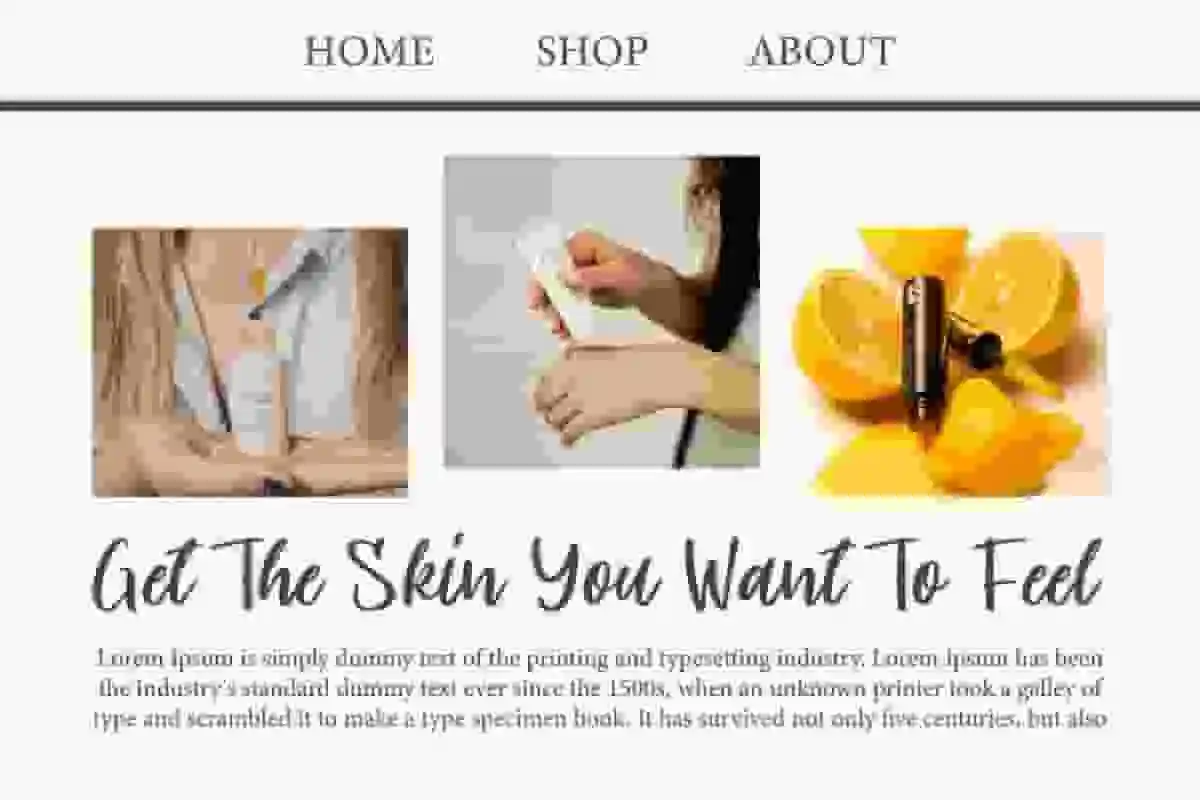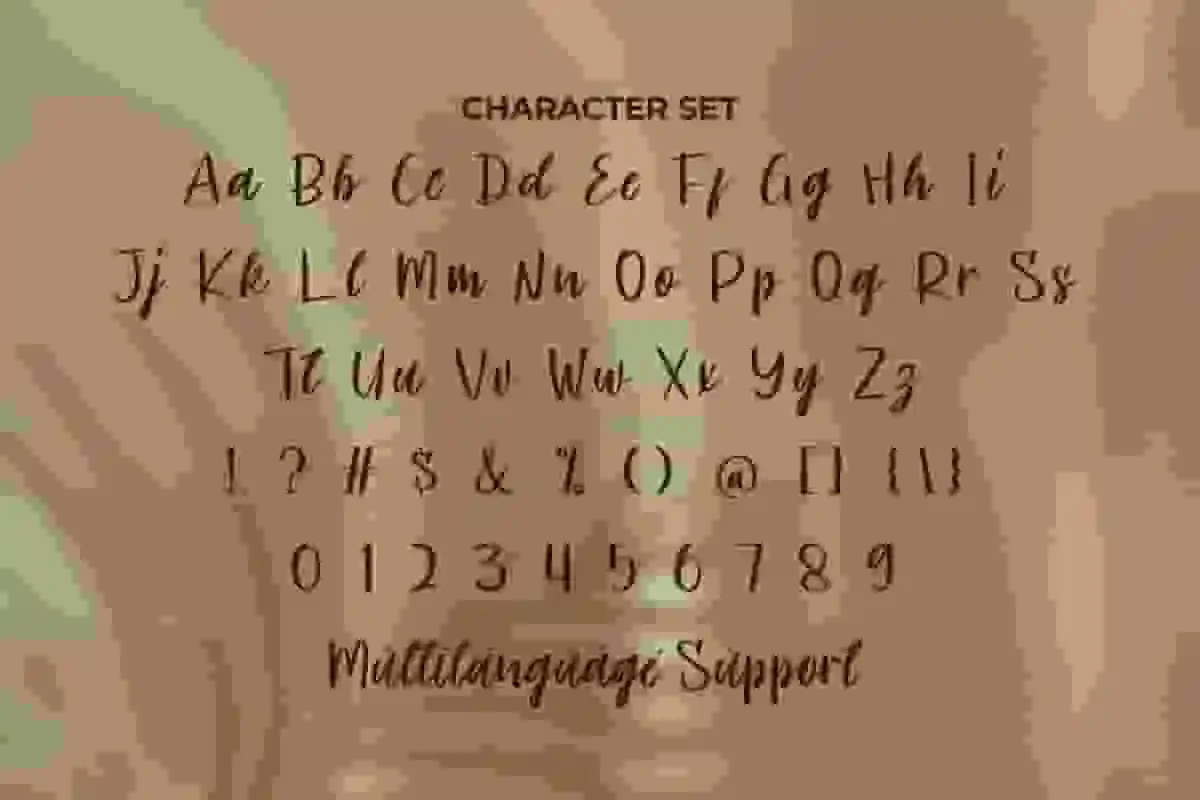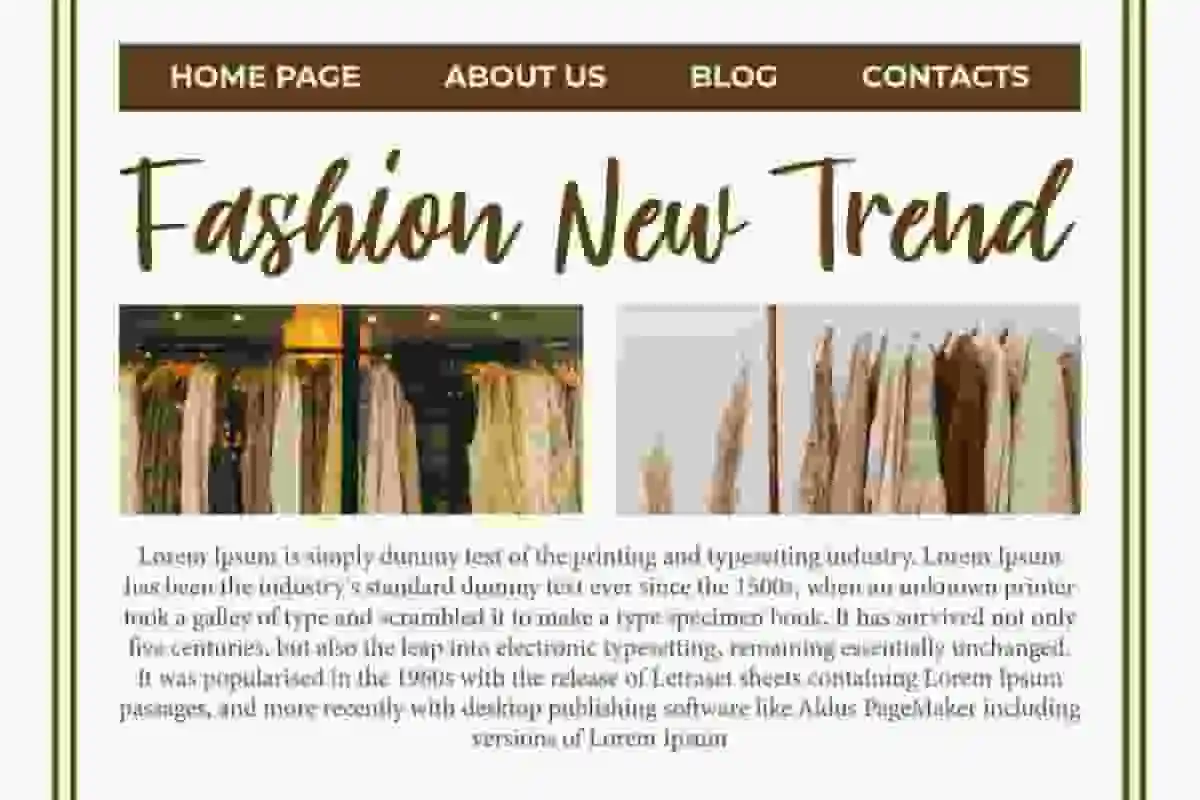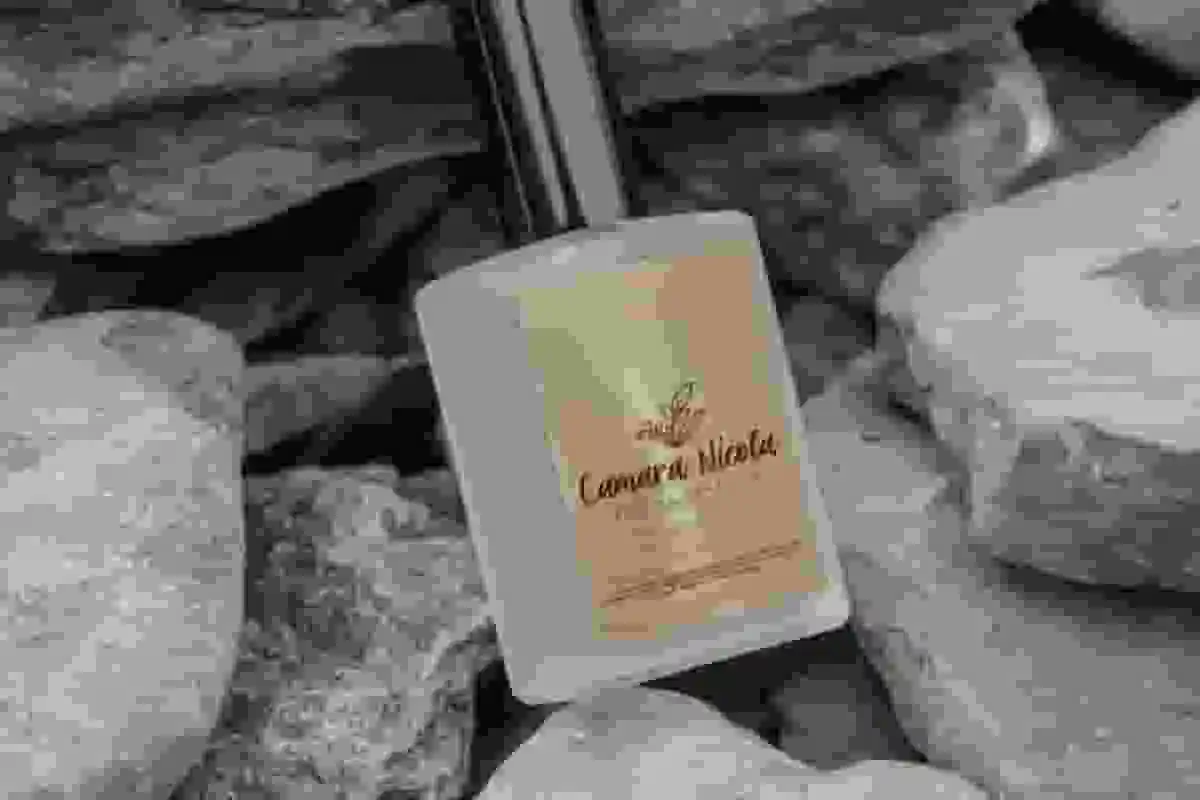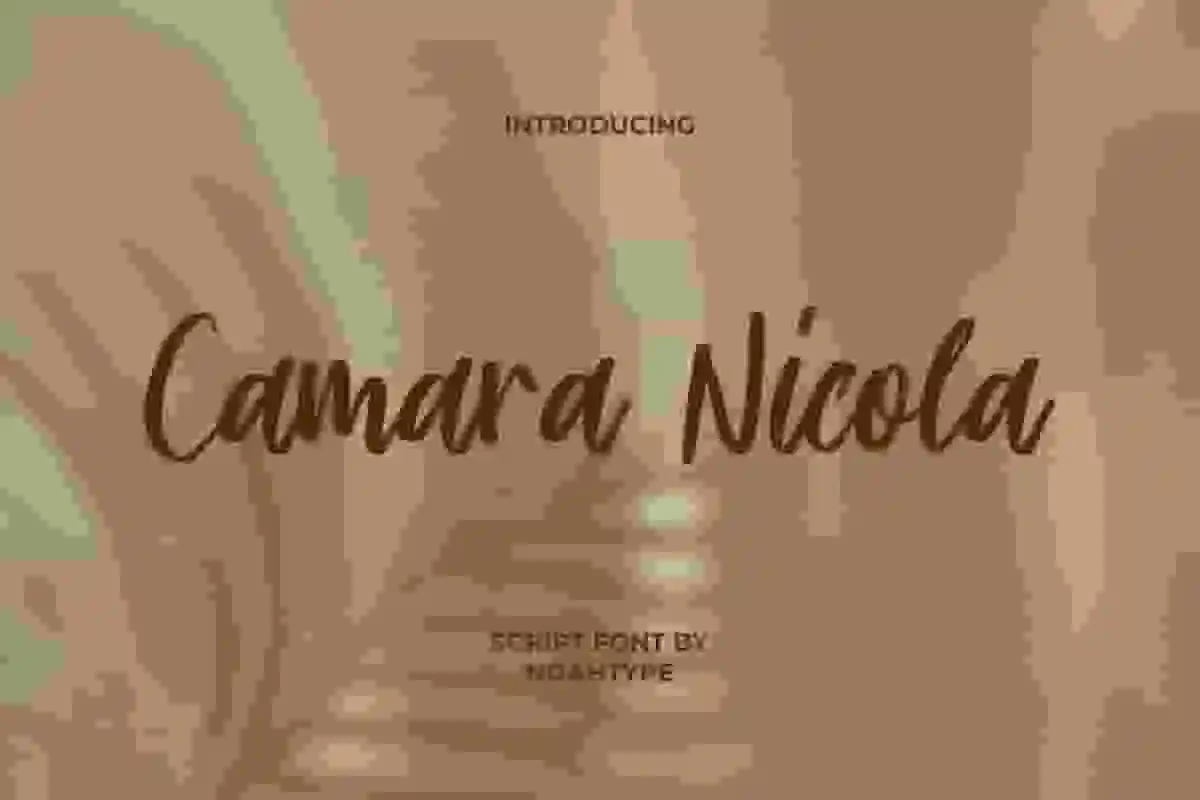
Camara Nicola Font
Camara Nicola Font is a script font with a beautiful aura by NoahType. This font falls into the calligraphy category with characters that are able to beautify every design created. It will be good for any industries, such as event or wedding organizer, advertising, beauty product, cafe, fashion, florist, printing, publishing, and more!
Camara Nicola Font includes full set of Uppercase and Lowercase Basic Characters, Numerals, Punctuation and Symbol. Go get and use this lovely font in your various designs, such as invitation, label, brand image, brochure, custom design, gift box, menu, poster, quotes, screen printing, signage, stationery, website, and more!